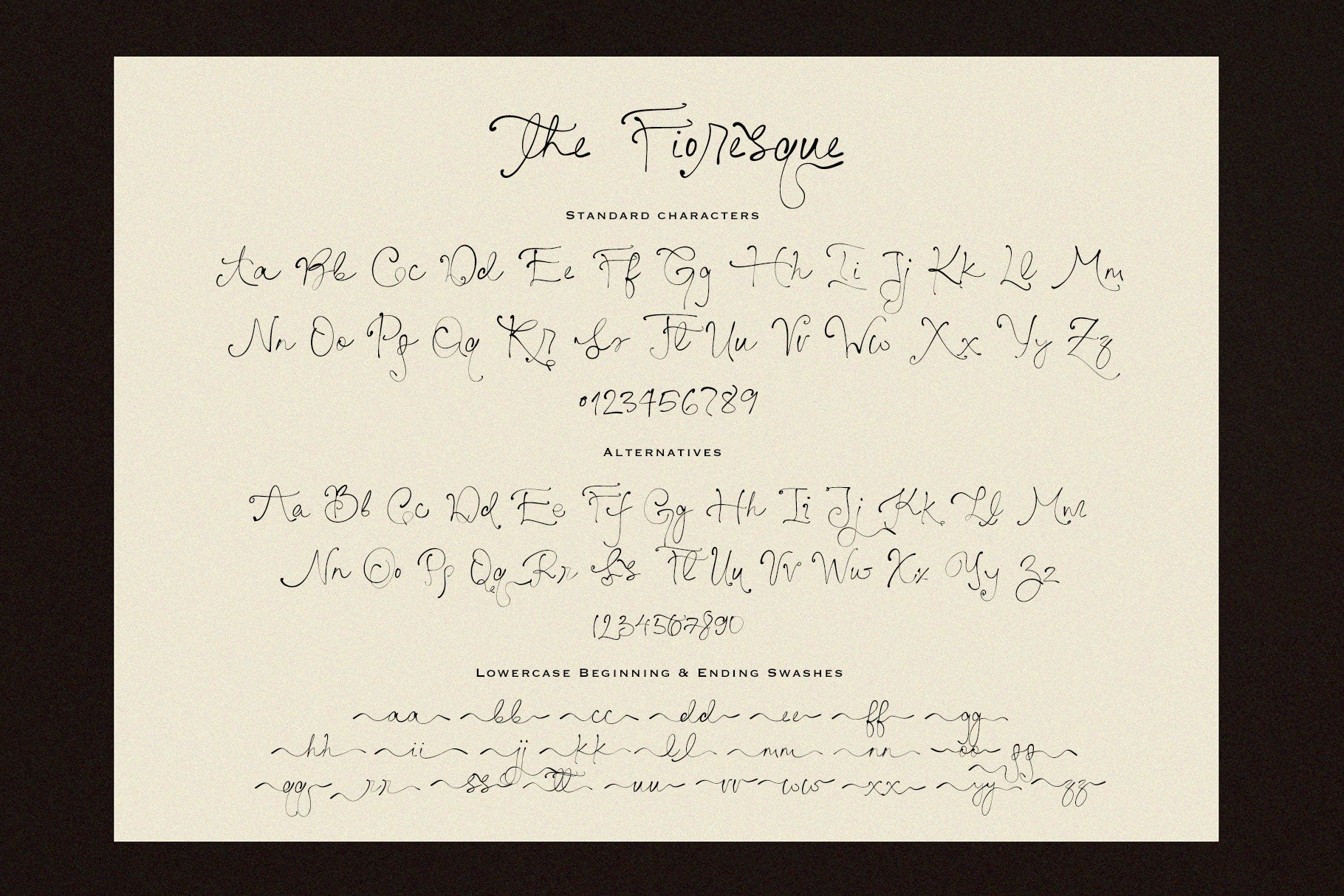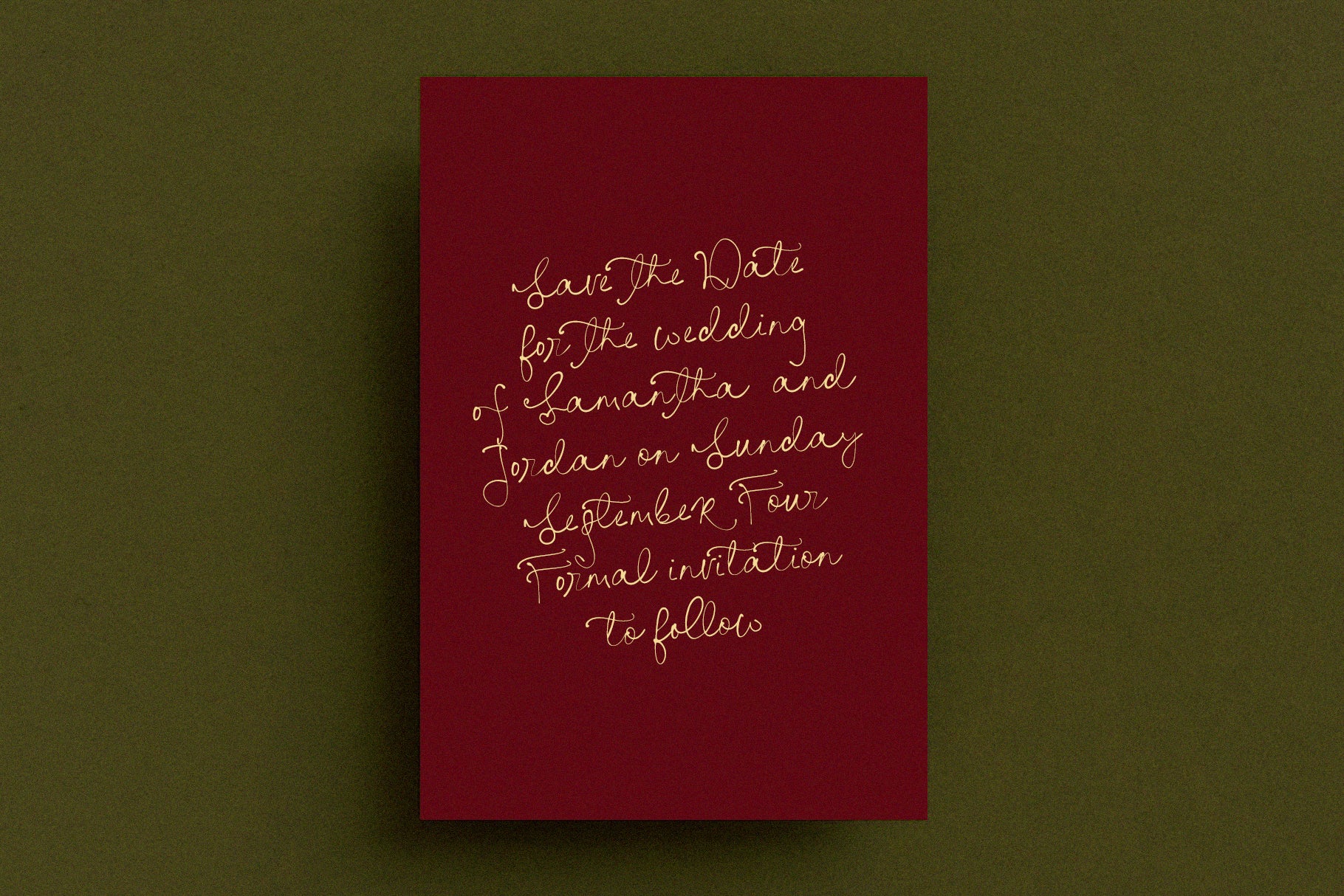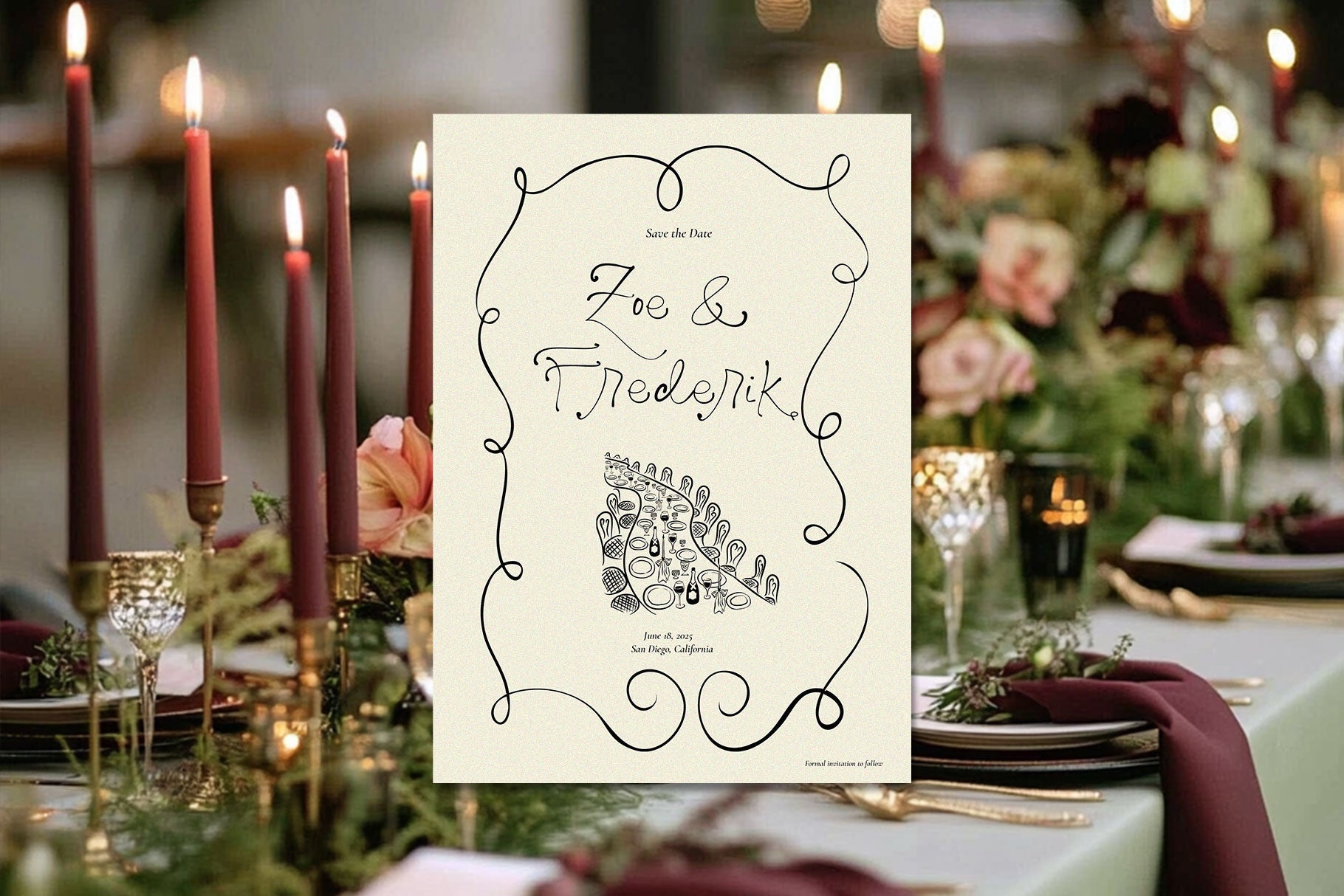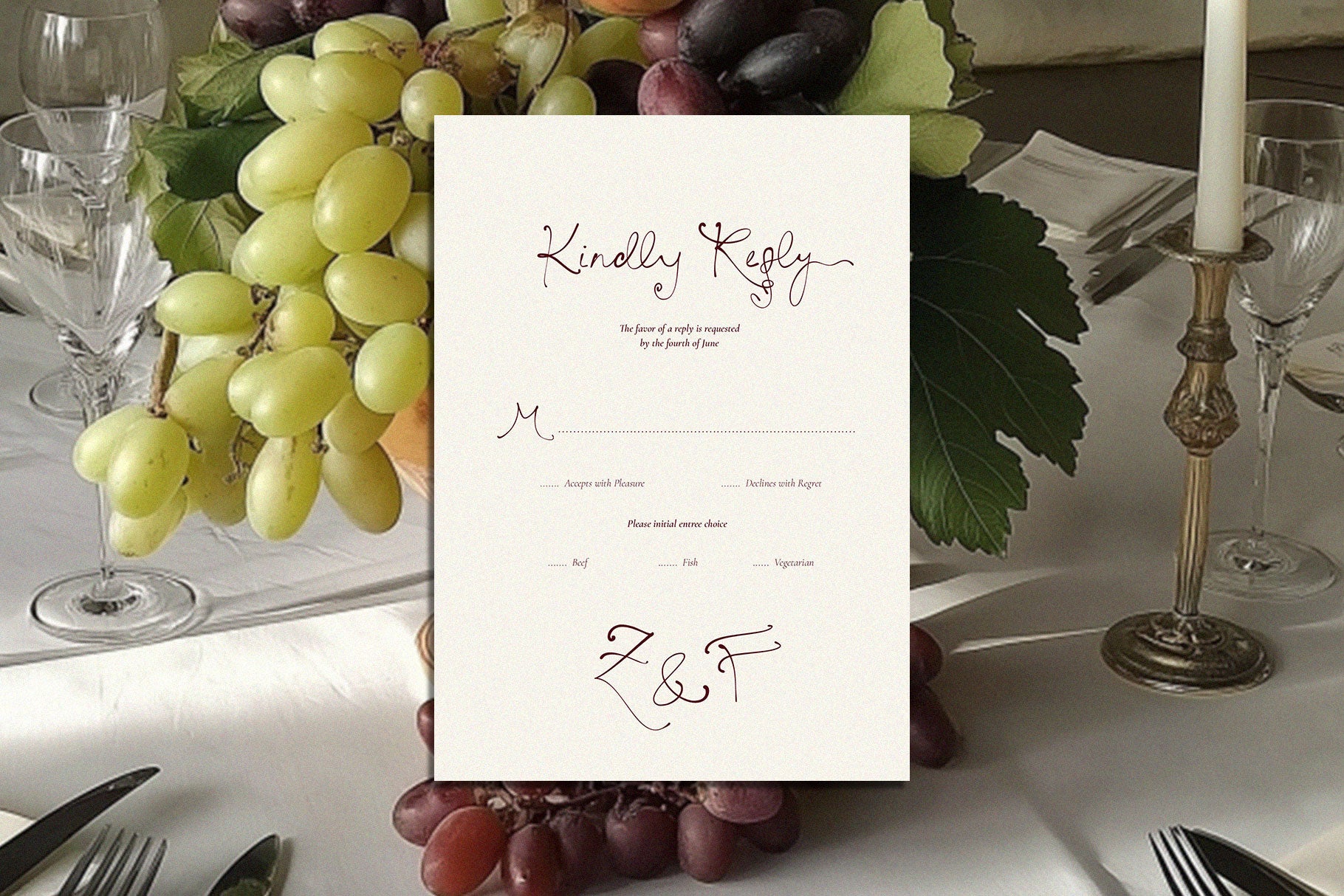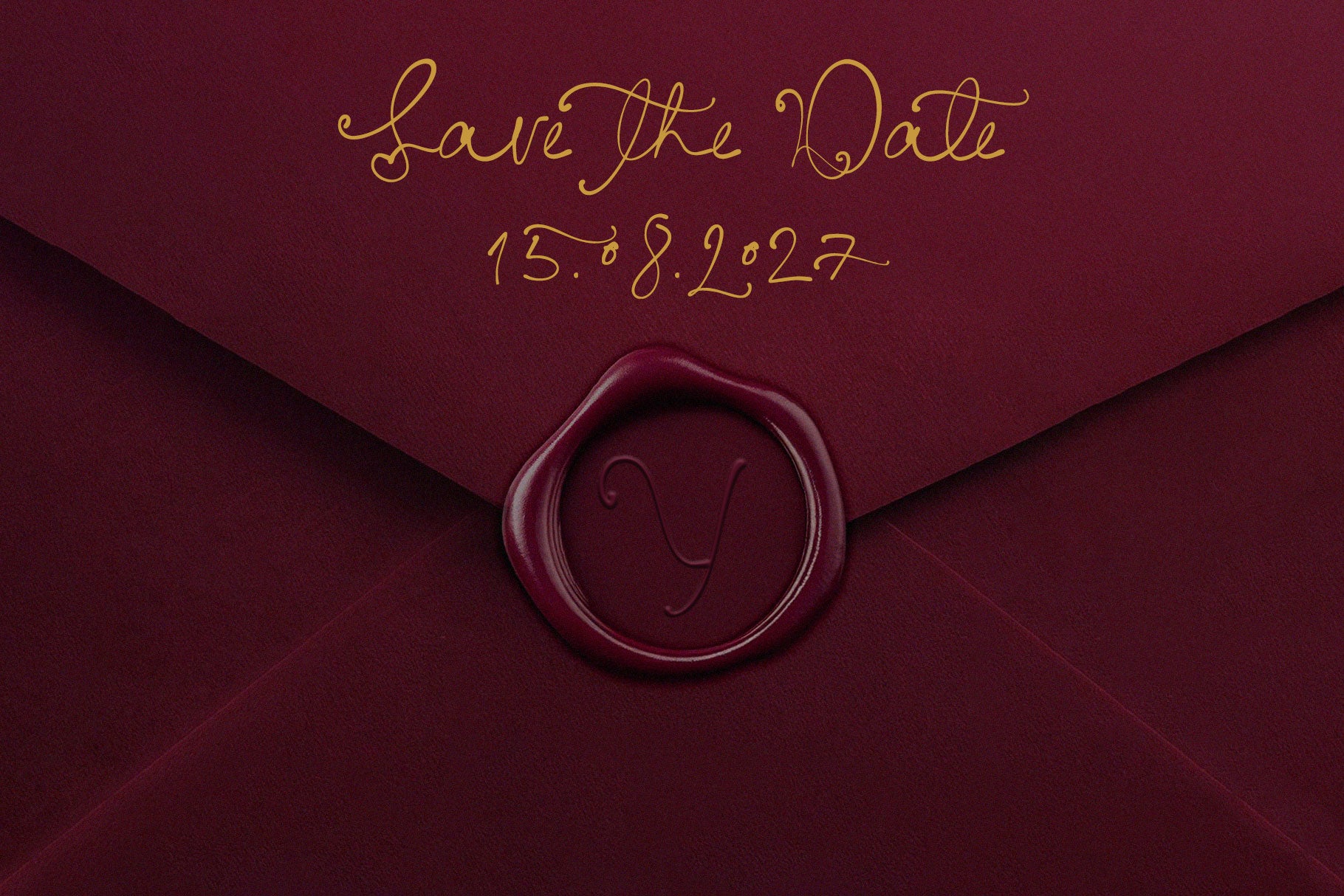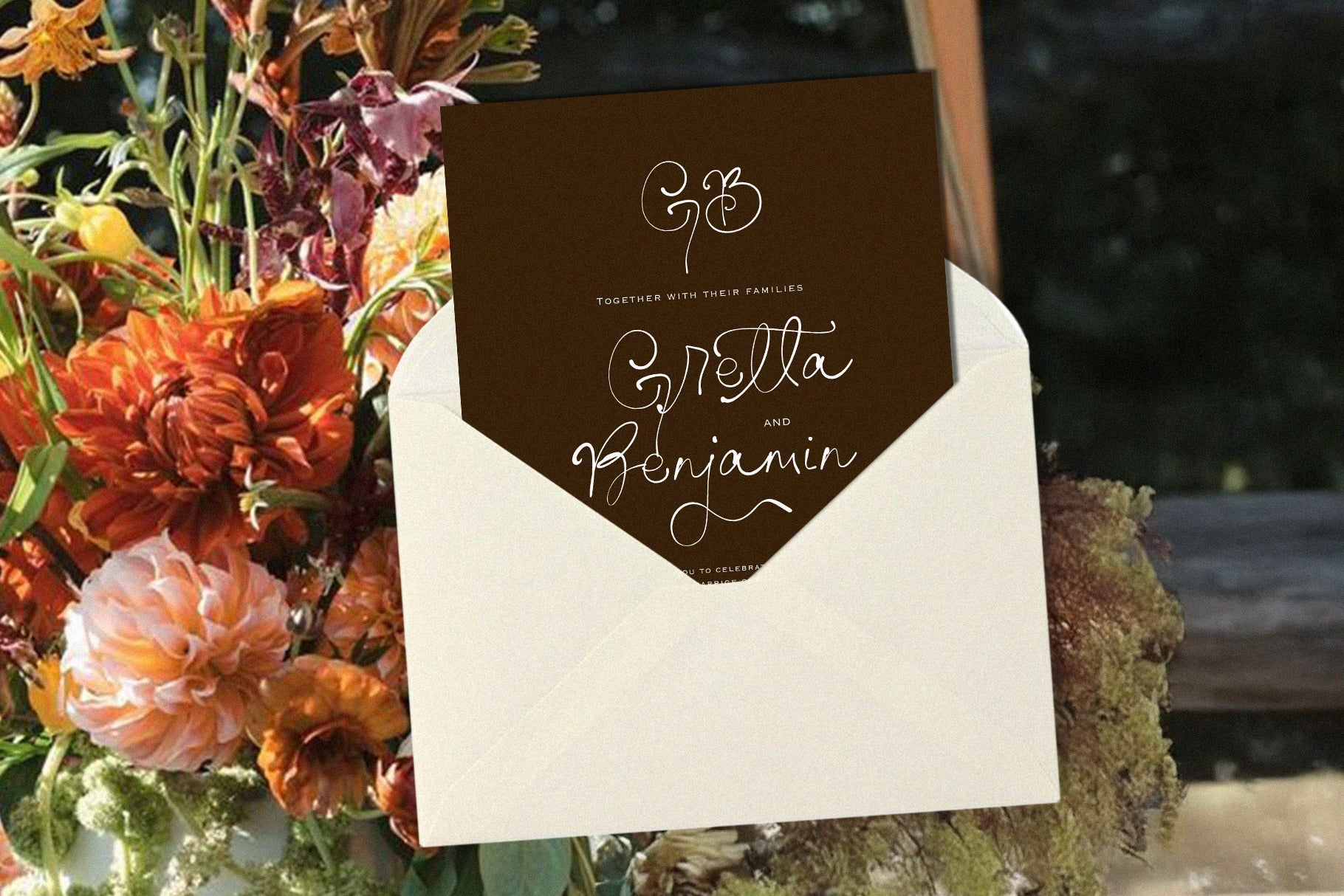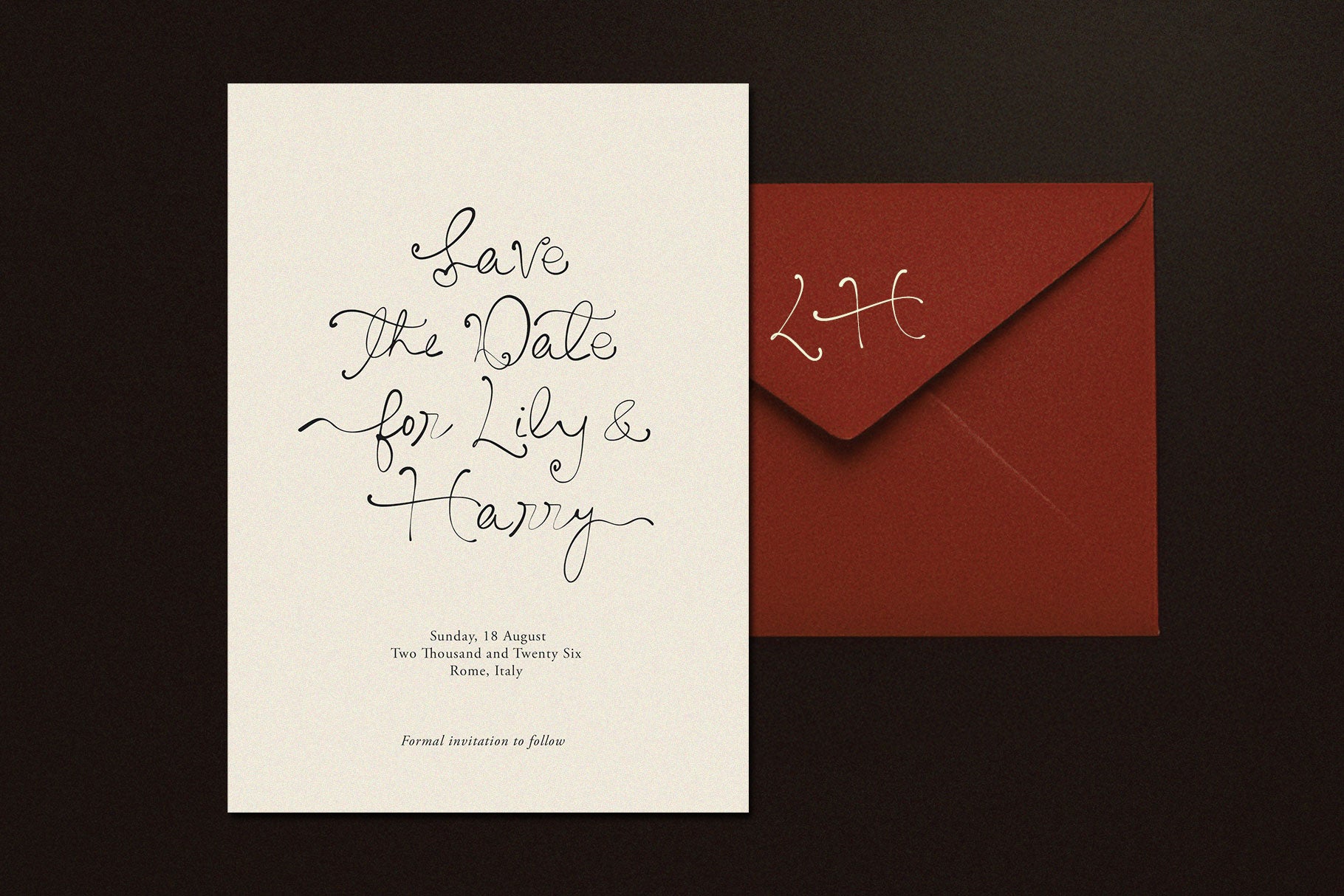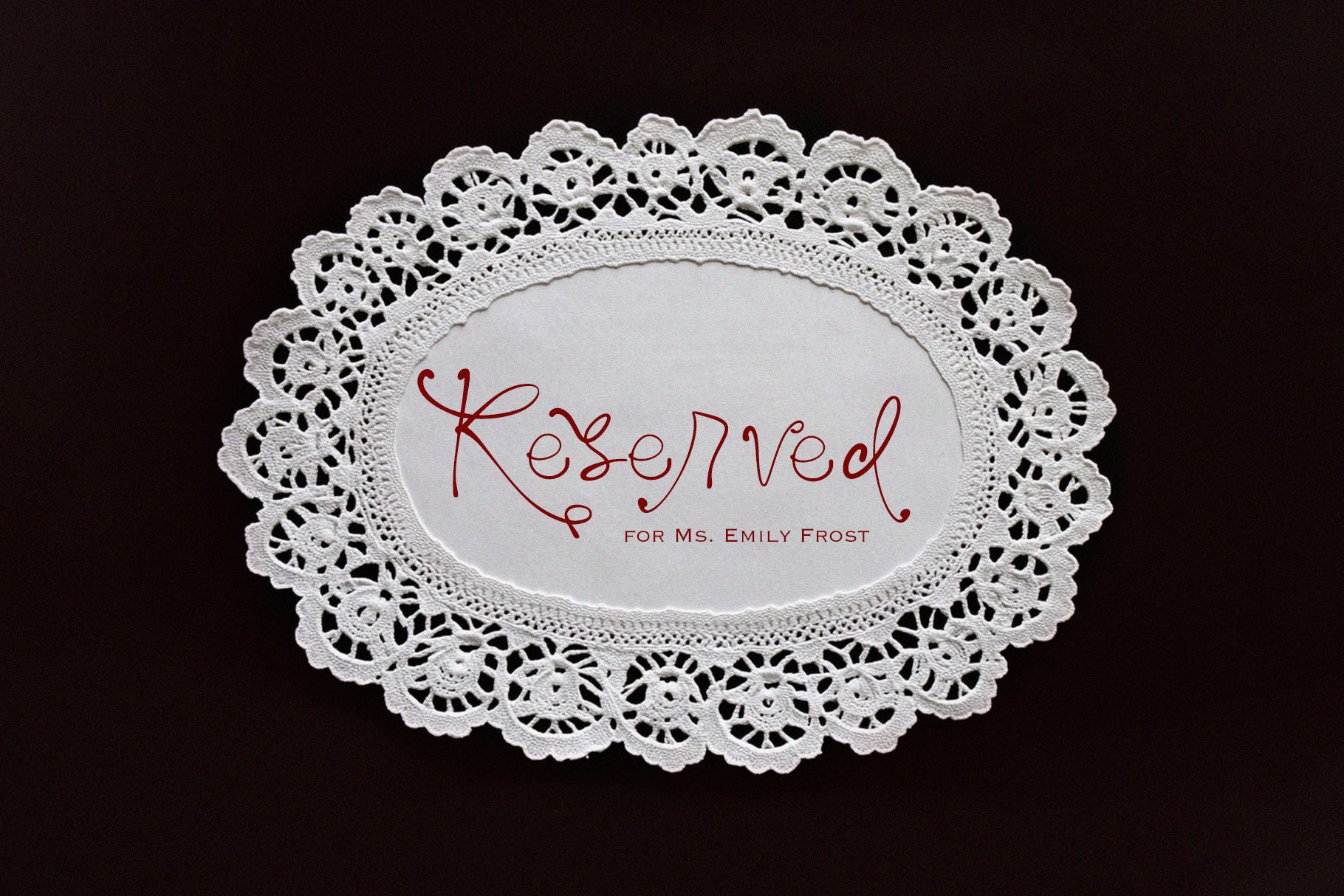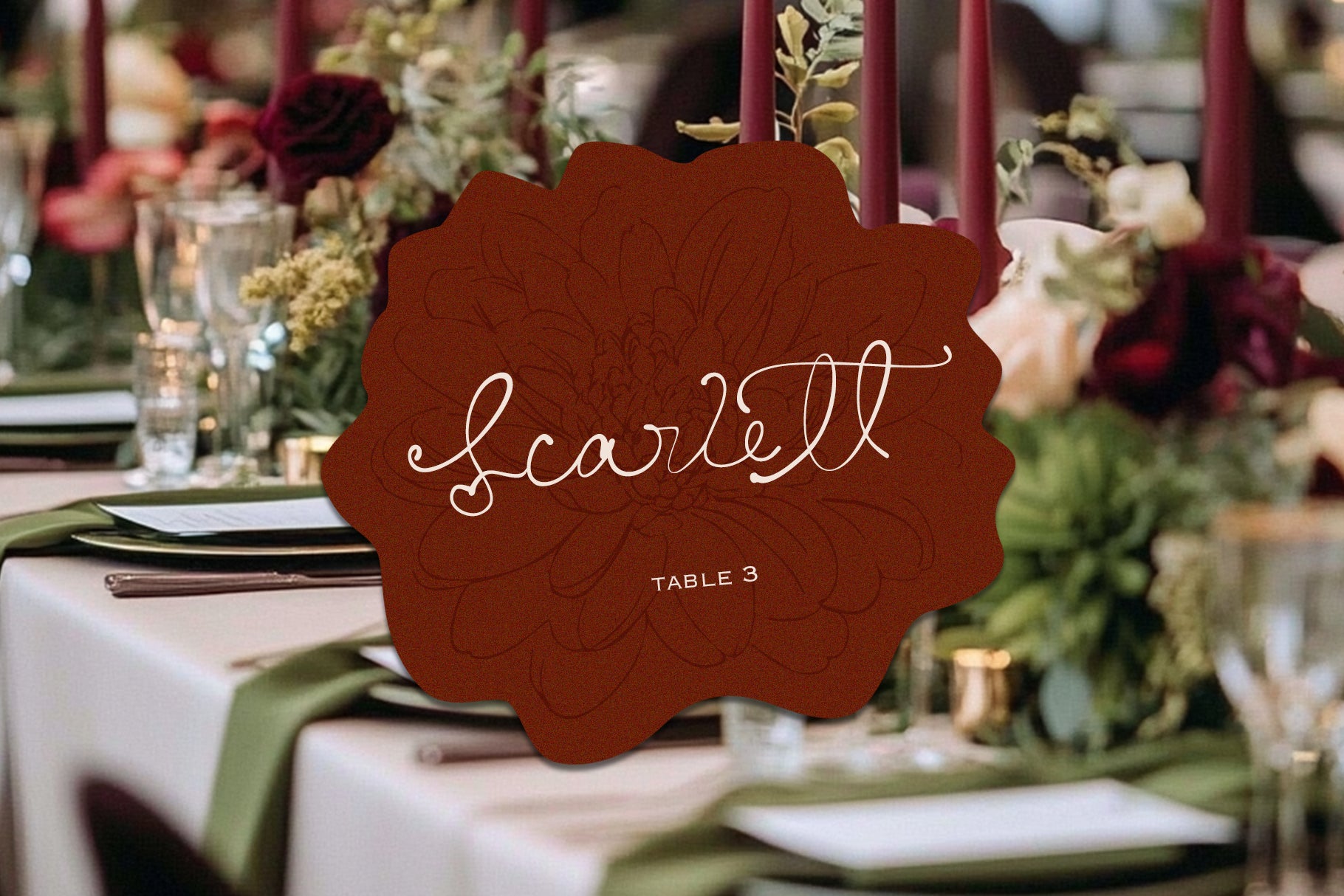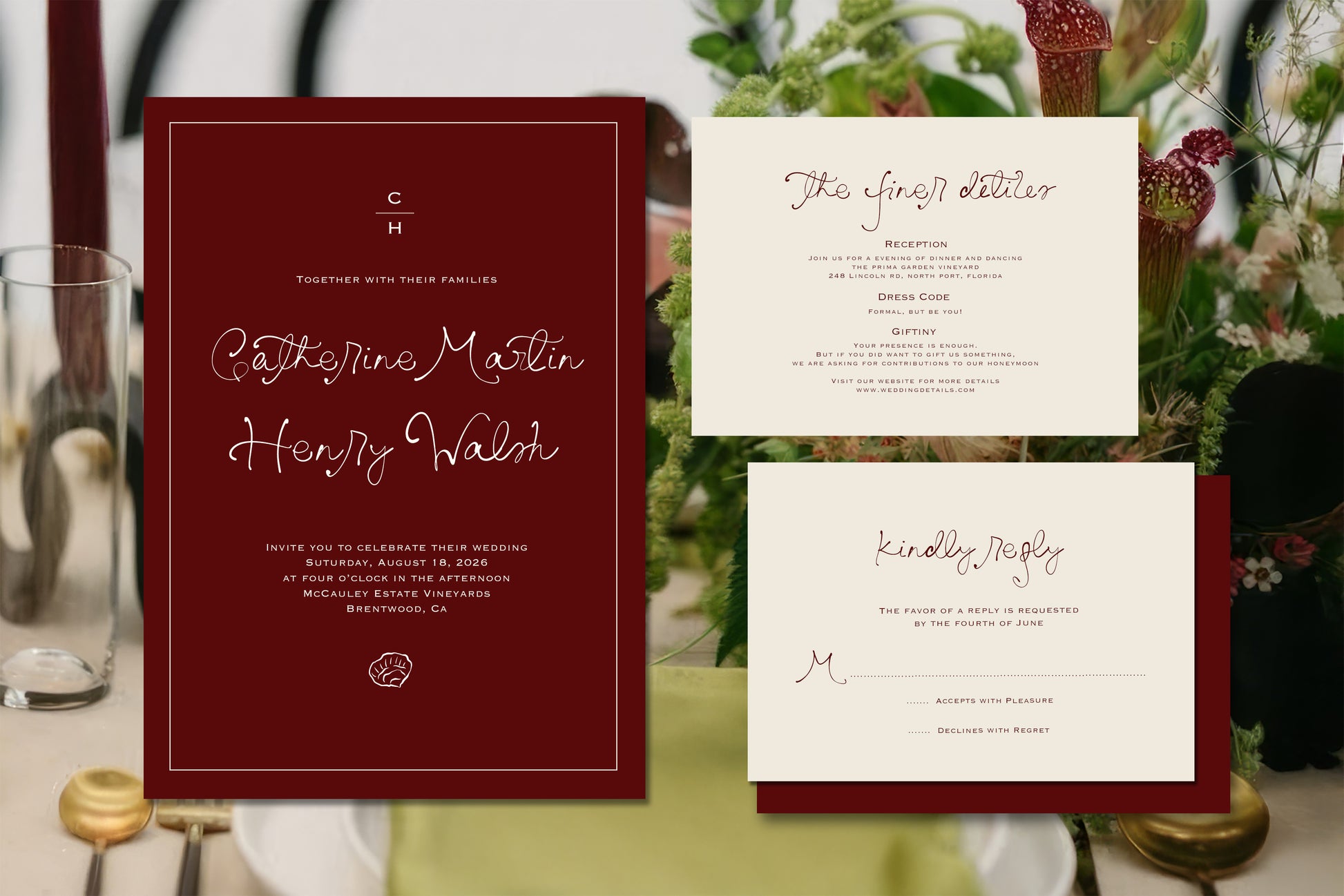
The Fioresque Handwritten Font
Introducing you “The Fioresque” – a refined handwritten wedding font that blends casual elegance with timeless charm. Perfect for bespoke wedding stationery, save-the-date cards, boutique logos, and premium packaging. The Fioresque strikes a flawless balance between artistry and readability, turning every word into a captivating visual statement.
A standout feature of The Fioresque is its rich selection of stylistic alternates and ligatures. Fresh yet versatile, The Fioresque adapts beautifully to any style – from minimalist layouts to intricate floral designs – always adding a touch of grace and sophistication to your work.